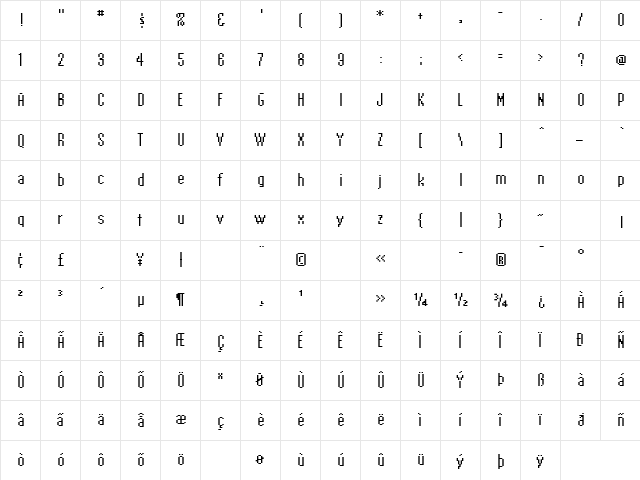
EmperorTen Regular Font Preview
EmperorTen Regular
Design Context for EmperorTen Typeface
EmperorTen offers clean, dependable letterforms without strong stylistic allegiance, making it a practical choice for designers who need flexibility.
Pro Tip: Use EmperorTen in both headline and body roles to test its range before committing to a single application.